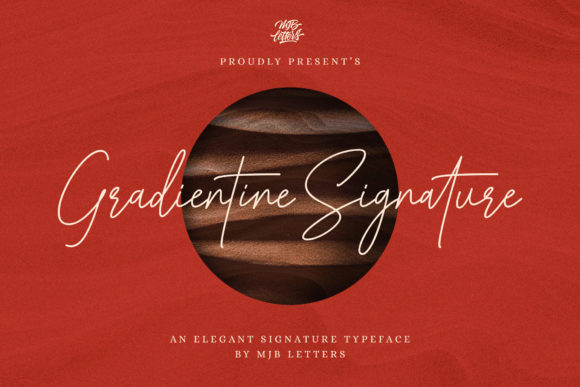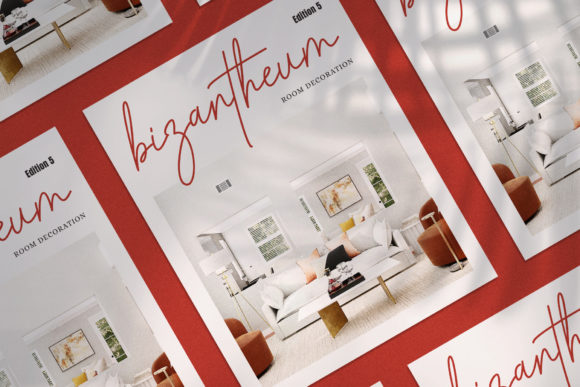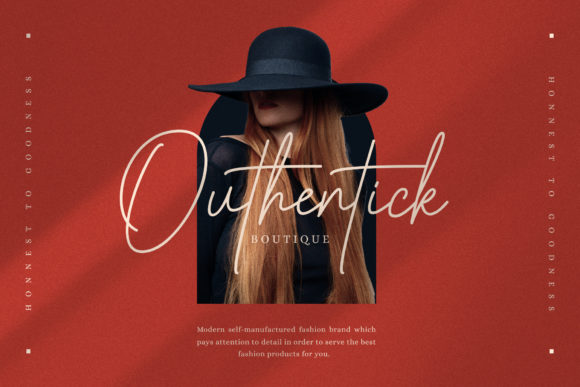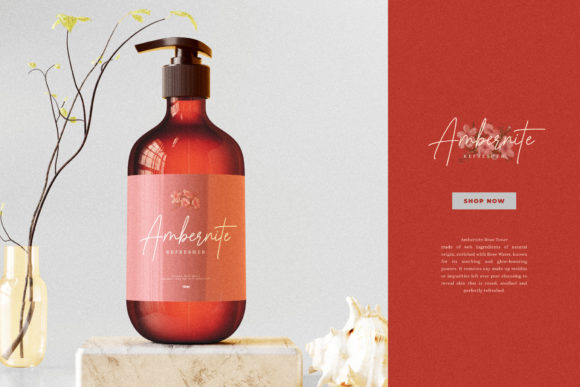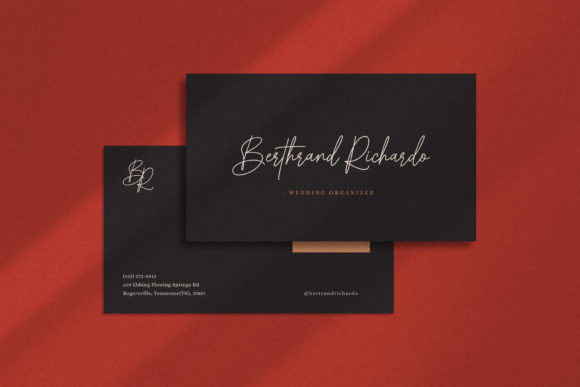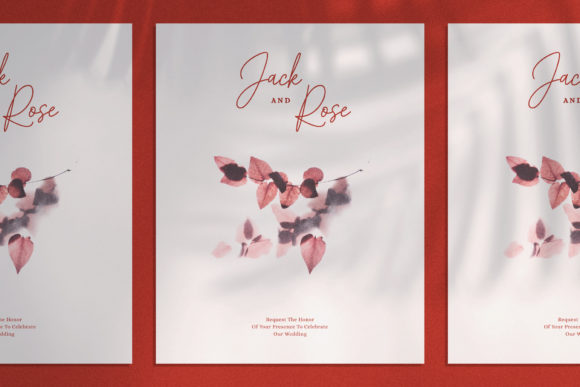
Introducing Gradientine Signature Font: A Romantic and Sweet Calligraphy Typeface
Are you a designer or crafter looking for a unique and elegant font to add a touch of sophistication to your projects? Look no further than Gradientine Signature Font, a romantic and sweet calligraphy typeface that is sure to capture the hearts of your audience. In this article, we’ll dive into the features and benefits of Gradientine Signature Font, and explore how it can elevate your designs to the next level.
A Casual yet Elegant Touch
Gradientine Signature Font is a beautifully crafted calligraphy typeface that exudes a casual yet elegant touch. Its characters dance along the baseline, creating a sense of movement and fluidity that is both visually appealing and engaging. Whether you’re designing a wedding invitation, a branding campaign, or a craft project, Gradientine Signature Font is the perfect choice for adding a touch of romance and whimsy.
Gradientine Signature Font is a versatile typeface that is perfect for a wide range of design applications. Whether you’re a professional designer or a crafter looking to add a personal touch to your projects, Gradientine Signature Font is the perfect choice. Its romantic and sweet style is sure to appeal to a wide range of audiences, from brides and grooms looking for a unique wedding font to crafters looking to add a touch of elegance to their handmade projects.
- Romantic and sweet calligraphy typeface: Gradientine Signature Font is a beautifully crafted typeface that exudes a sense of romance and whimsy.
- Casual yet elegant touch: Its characters dance along the baseline, creating a sense of movement and fluidity that is both visually appealing and engaging.
- Perfect for designers and crafters: Gradientine Signature Font is a versatile typeface that is perfect for a wide range of design applications.
Gradientine Signature Font is a romantic and sweet calligraphy typeface that is sure to capture the hearts of your audience. Its casual yet elegant touch, combined with its PUA encoding, make it the perfect choice for designers and crafters looking to add a touch of sophistication to their projects. Whether you’re designing a wedding invitation, a branding campaign, or a craft project, Gradientine Signature Font is the perfect choice. So why wait? Download Gradientine Signature Font today and start creating beautiful, unique designs that will leave a lasting impression!